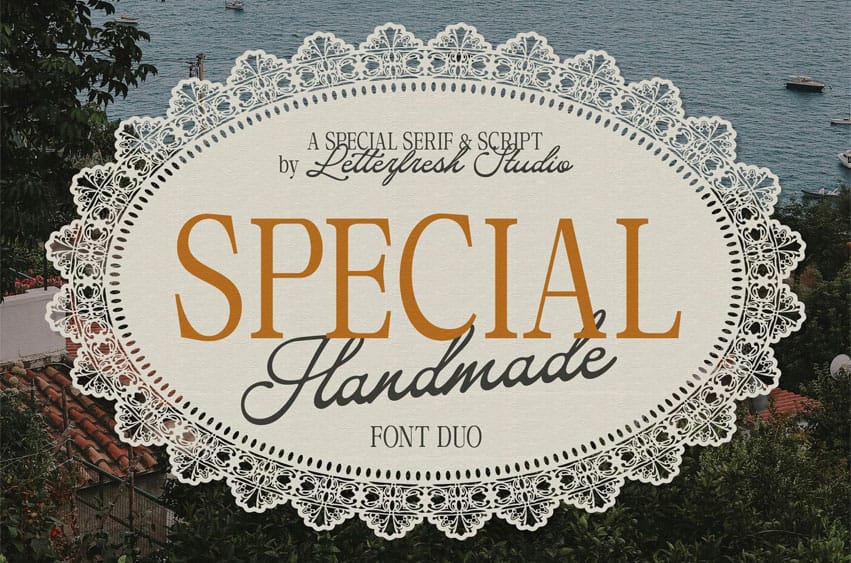
Special Handmade Font Duo is a handcrafted font duo featuring bold Serif and script typefaces. You can use this font for a variety of purposes, especially for designs that require a retro and vintage feel, such as posters, logos, quotes, and branding. The alternates, ligatures, and lines of the script font will enhance the look of your projects. This font duo is also multilingual!